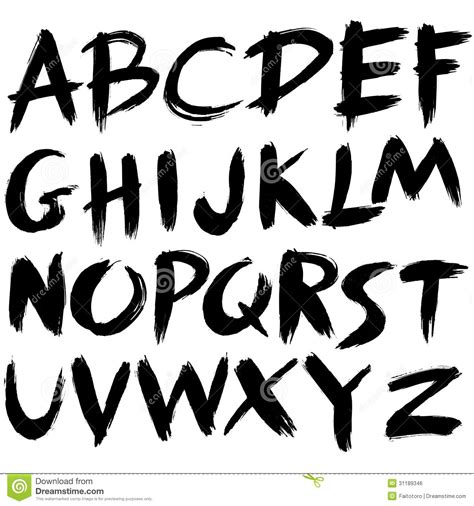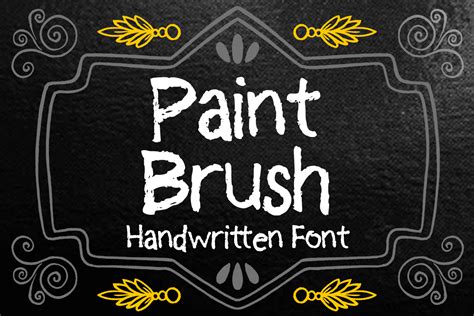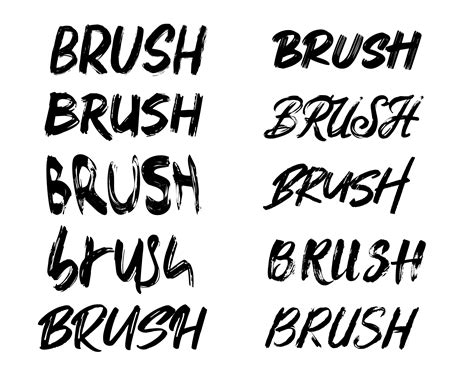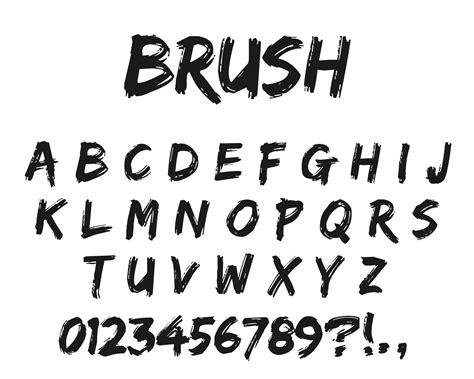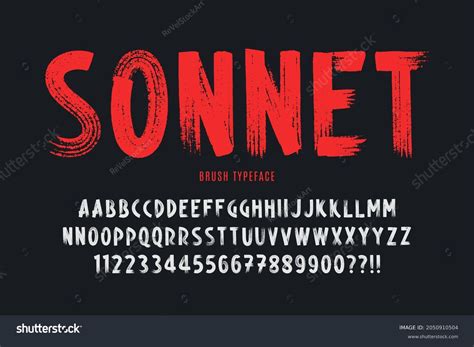
In the world of digital design and typography, the Paint Brush Font stands out as a unique and expressive choice. This font style mimics the natural, hand-painted strokes of a brush, adding a personal and artistic touch to any design project. Whether you're creating a logo, designing a poster, or crafting a website, the Paint Brush Font can bring a sense of creativity and warmth to your work.
Understanding the Paint Brush Font
The Paint Brush Font is characterized by its irregular, hand-drawn lines and varying stroke widths. This font style is inspired by traditional brush painting techniques, where the artist's hand movements create unique and dynamic shapes. The result is a font that looks as if it was painted by hand, adding a personal and authentic feel to digital designs.
There are several types of Paint Brush Fonts, each with its own unique characteristics:
- Brush Script Fonts: These fonts mimic the flow of a brush script, with connected letters that resemble handwritten calligraphy.
- Grungy Brush Fonts: These fonts have a rough, textured appearance, as if they were painted with a brush dipped in thick paint.
- Watercolor Brush Fonts: These fonts have a soft, watercolor-like appearance, with blended edges and a delicate touch.
Applications of the Paint Brush Font
The Paint Brush Font is incredibly versatile and can be used in a variety of design projects. Here are some popular applications:
- Logo Design: A Paint Brush Font can add a personal and artistic touch to a logo, making it stand out from generic, computer-generated designs.
- Poster and Flyer Design: For events, concerts, or promotions, a Paint Brush Font can create a visually appealing and eye-catching design that grabs attention.
- Website Design: Incorporating a Paint Brush Font into a website can add a unique and memorable element, enhancing the overall user experience.
- Social Media Graphics: For social media posts, stories, and covers, a Paint Brush Font can make your content stand out and engage your audience.
- Invitations and Greeting Cards: A Paint Brush Font can add a personal and heartfelt touch to invitations, greeting cards, and other special occasion materials.
Choosing the Right Paint Brush Font
With so many Paint Brush Fonts available, choosing the right one for your project can be a challenge. Here are some factors to consider:
- Style and Aesthetic: Consider the overall style and aesthetic of your project. Choose a Paint Brush Font that complements the design and enhances its visual appeal.
- Legibility: Ensure that the font is legible and easy to read, especially if it will be used in small sizes or on digital screens.
- Versatility: Choose a font that can be used in various applications, from print to digital, to maximize its usefulness.
Tips for Using the Paint Brush Font
To make the most of the Paint Brush Font in your designs, follow these tips:
- Pair with Complementary Fonts: Pair the Paint Brush Font with complementary fonts to create a balanced and harmonious design. For example, you can pair a brush script font with a clean, sans-serif font for contrast.
- Use Sparingly: Because of its unique and expressive nature, the Paint Brush Font should be used sparingly to avoid overwhelming the design. Use it for headings, logos, or accent text to create visual interest.
- Adjust Size and Spacing: Adjust the size and spacing of the font to ensure legibility and visual appeal. Brush fonts often require more space between letters to maintain readability.
- Experiment with Colors: Experiment with different colors to enhance the visual impact of the font. Brush fonts look great in vibrant, bold colors as well as soft, pastel shades.
Creating Custom Paint Brush Fonts
If you can't find the perfect Paint Brush Font for your project, consider creating a custom font. Here are the steps to create your own custom Paint Brush Font:
- Sketch Your Design: Start by sketching your design on paper using a brush or paintbrush. Experiment with different strokes, shapes, and styles to create a unique look.
- Digitize Your Design: Use a graphics tablet or scanner to digitize your sketch. Import the image into a vector graphics program like Adobe Illustrator or Inkscape.
- Trace and Refine: Trace over your sketch using the pen tool to create clean, vector lines. Refine the shapes and adjust the stroke widths to achieve the desired look.
- Convert to Font: Use a font creation software like FontForge or Glyphs to convert your vector design into a font file. This involves mapping each character to a corresponding glyph and adjusting the spacing and kerning.